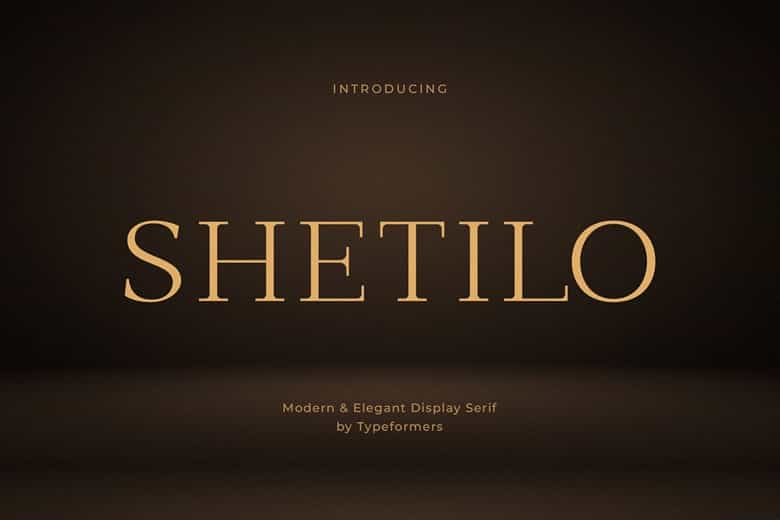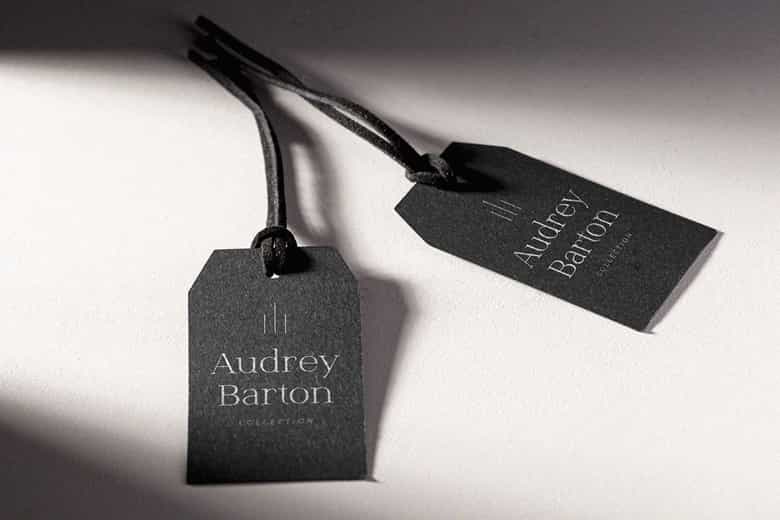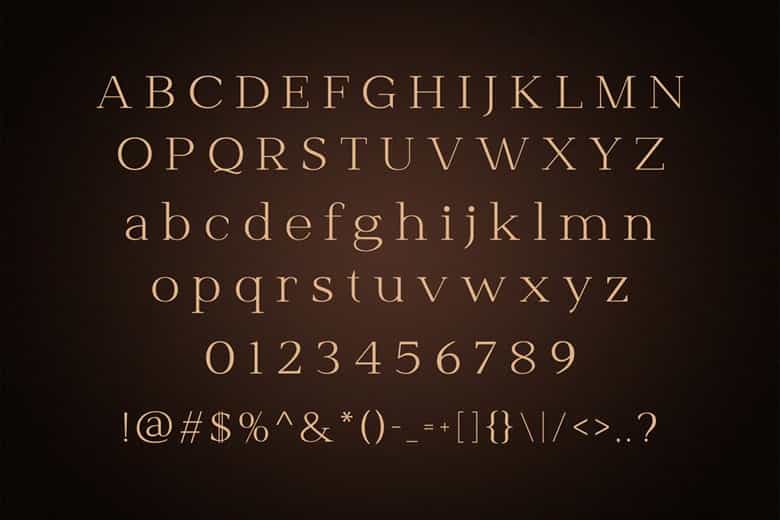
Shetilo is a modern and thin lettered serif typeface that was produced and designed at Typeformers. It is useful in a broad range of things from birthday cards to article headings, and it is sure to bring the romantic look to any project.